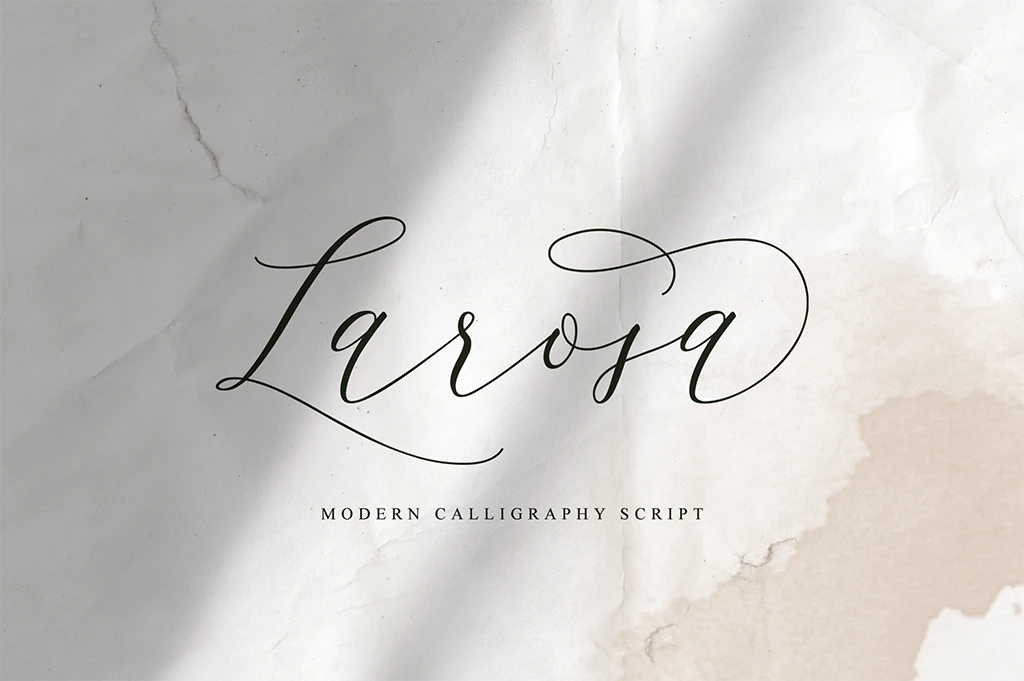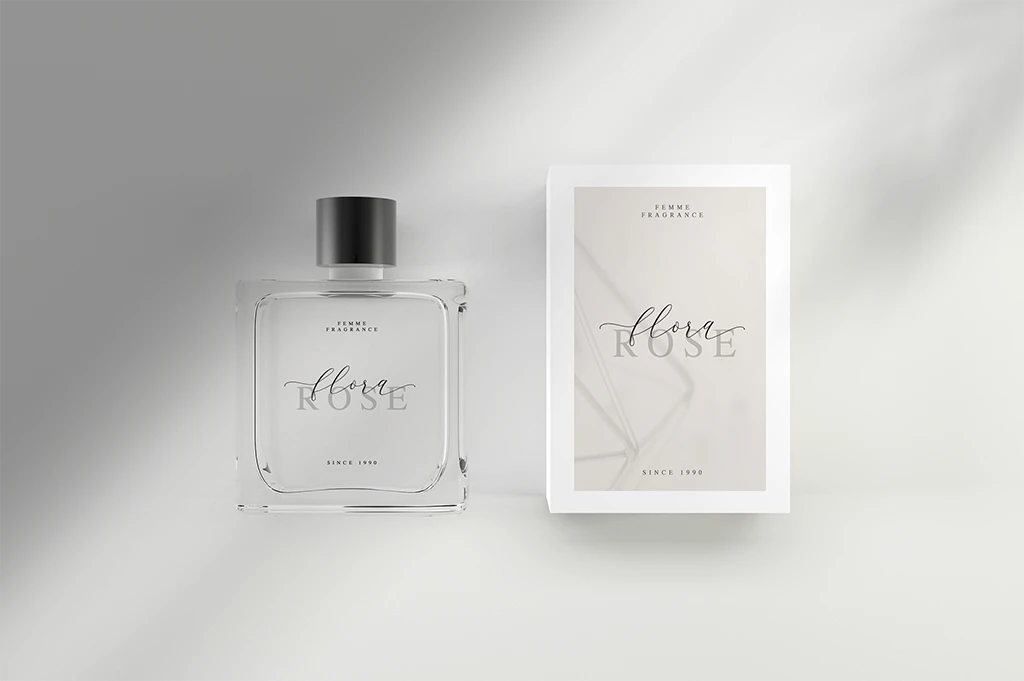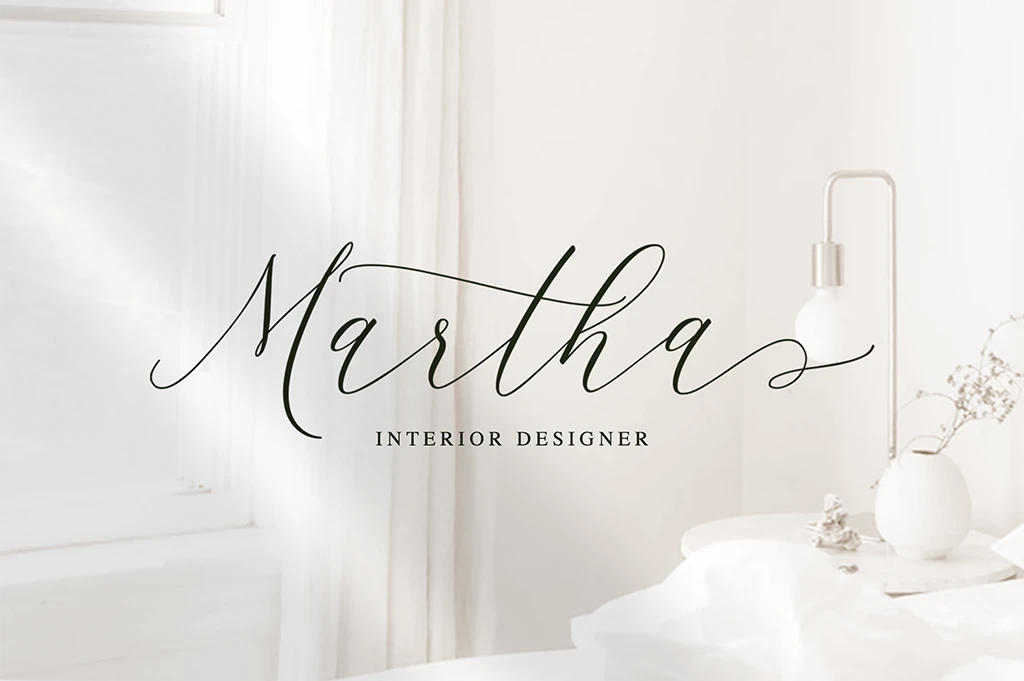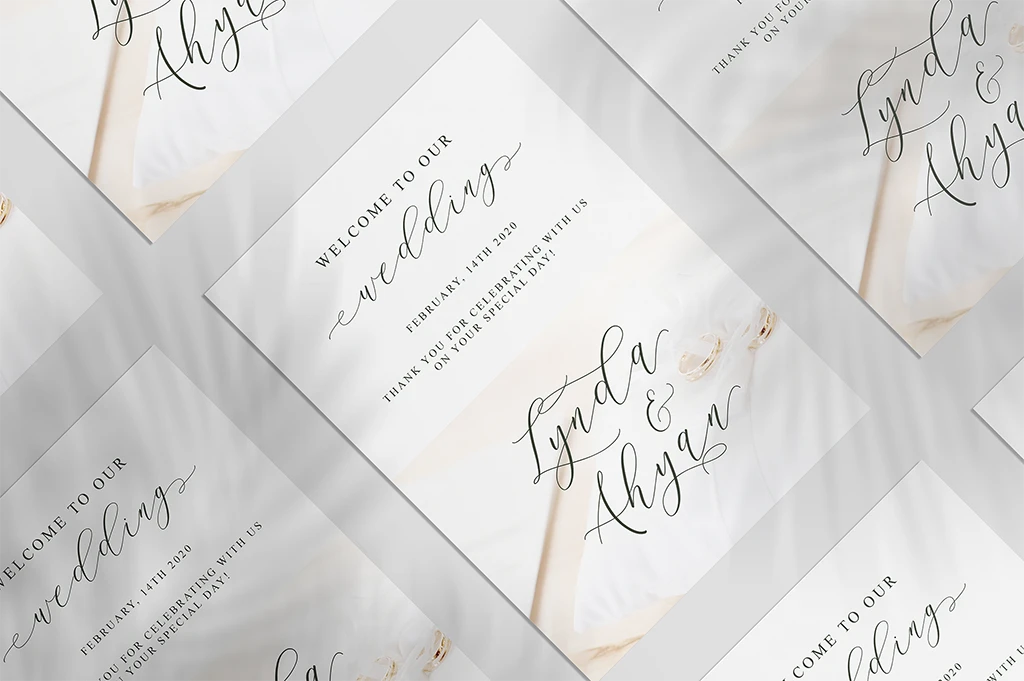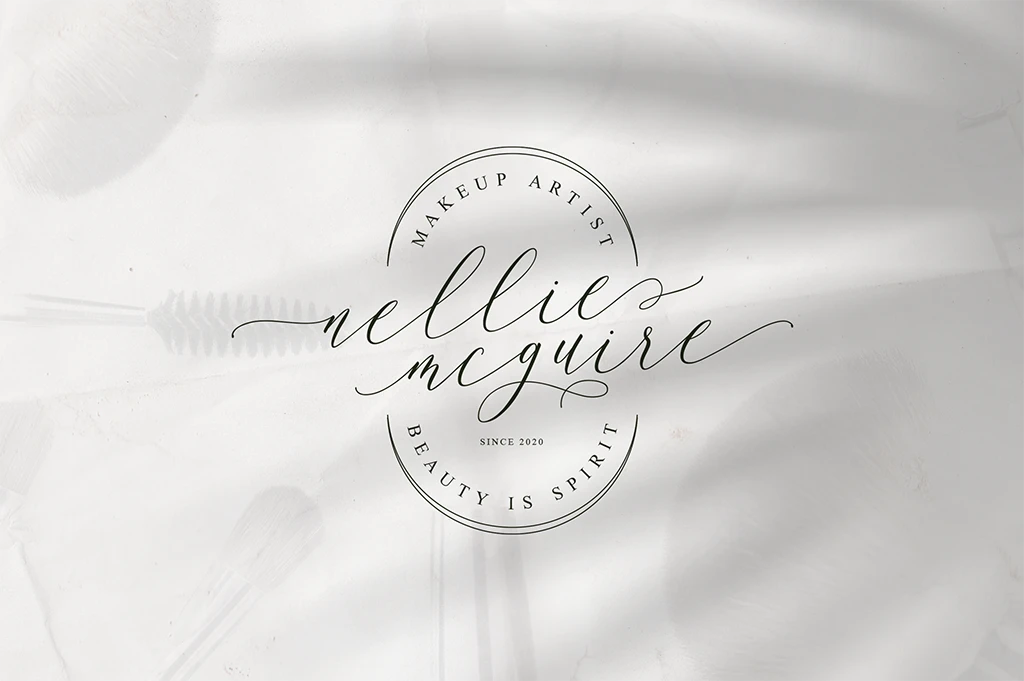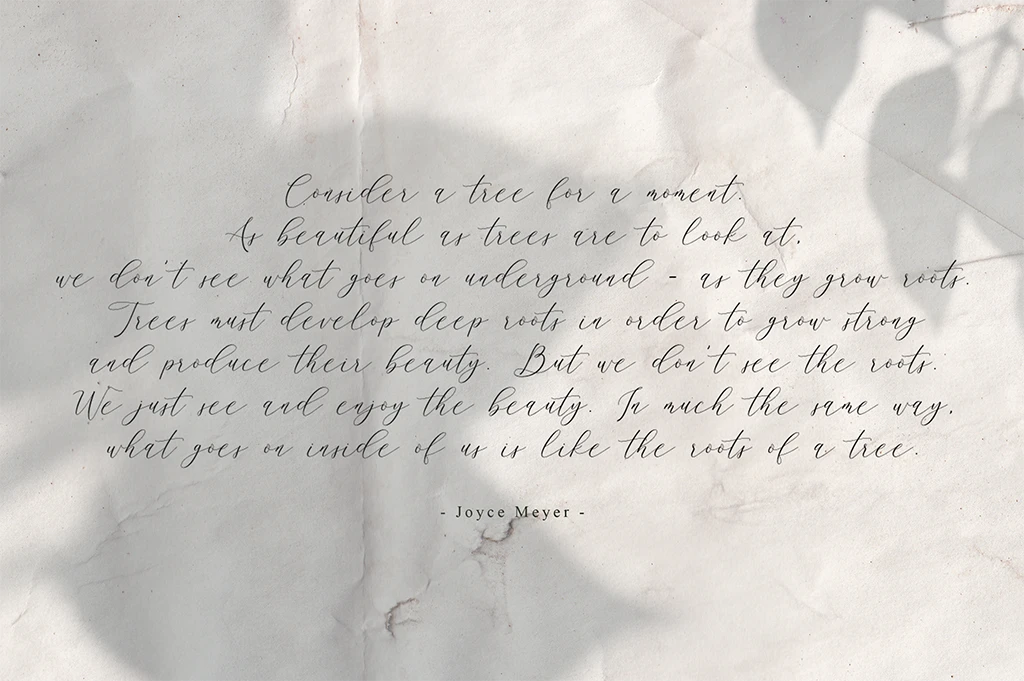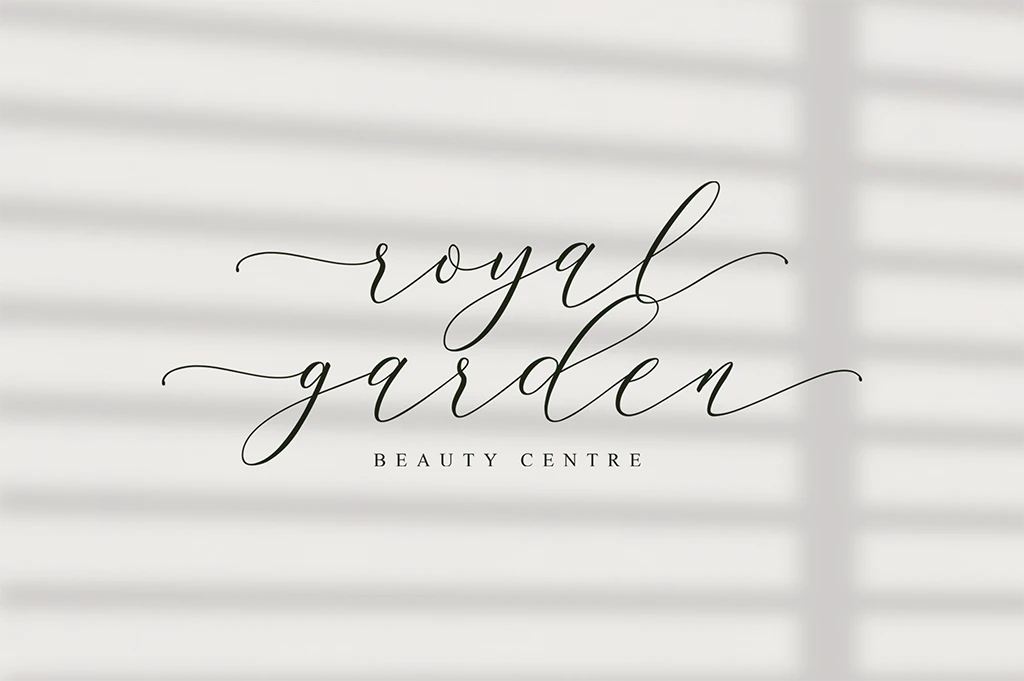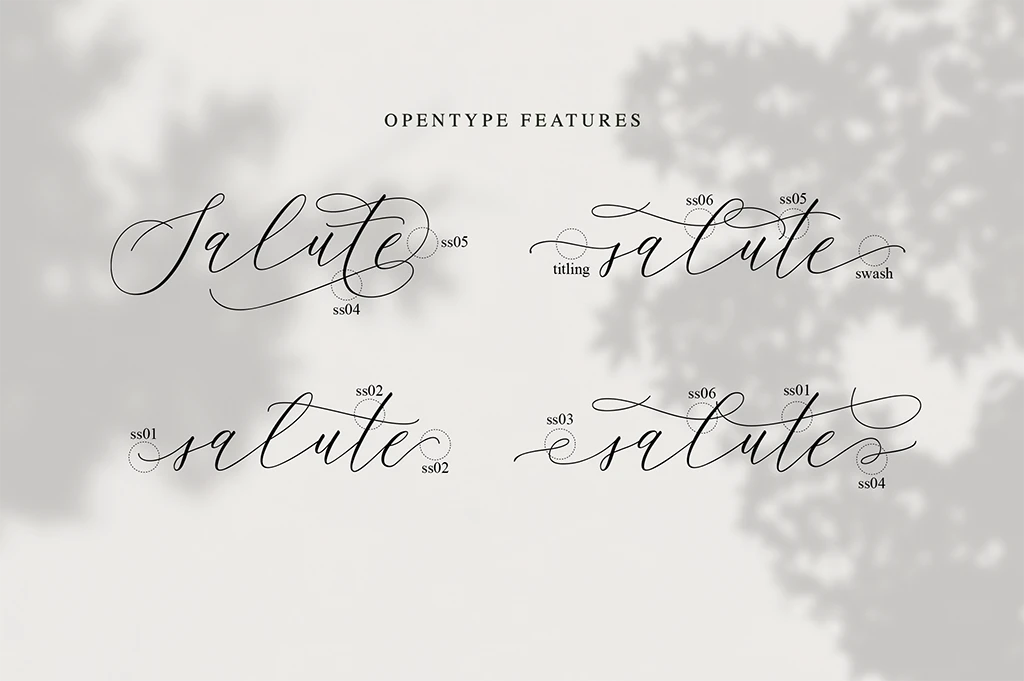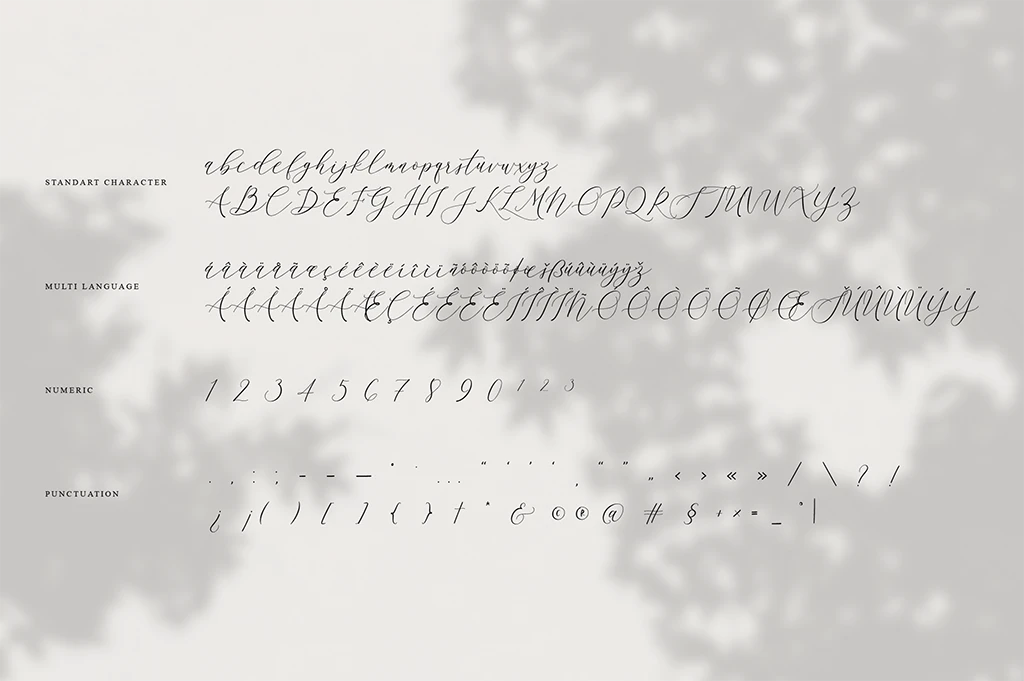
Larosa is a modern font that is elegant and luxurious. Made especially for who makes logo designs, wedding supplies, branding, beauty packaging, and more. Create your modern, clean and elegant design with Larosa.
Made with OpenType features and including titling and swash, 01-06 alternative characters for lowercase letters, numbers, punctuation, alternatives, and also supports other languages.